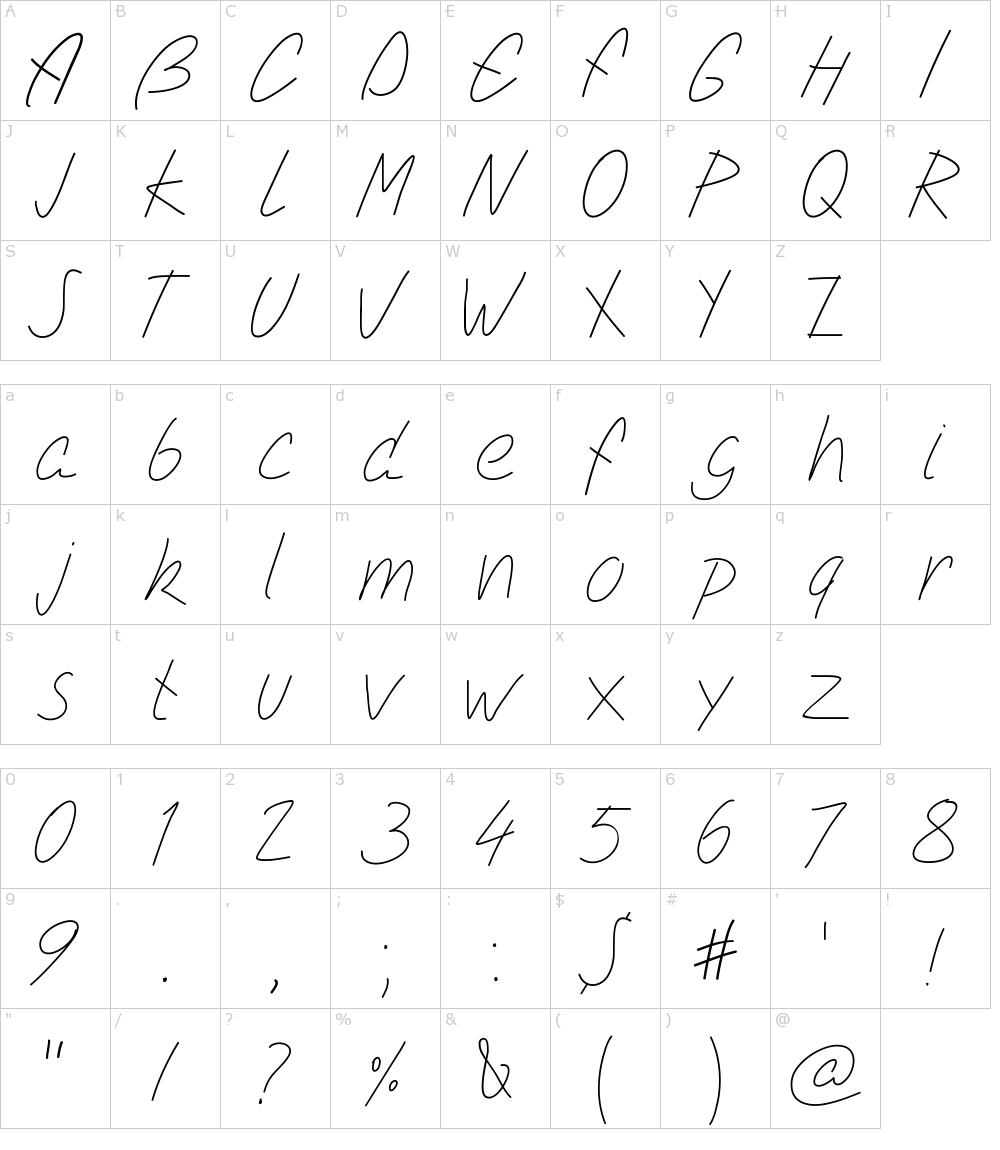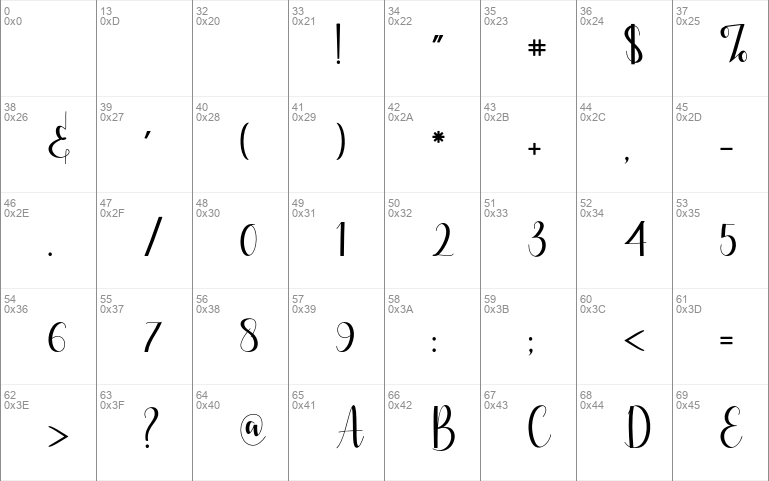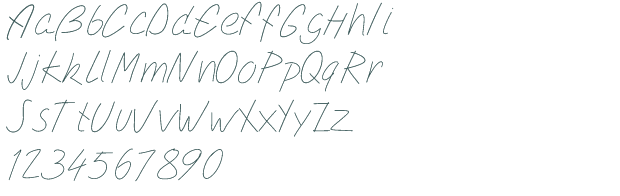
Best Simple Script Fonts
Best Simple Script Fonts. Kite is a simple font with creative stylistic elements. Alma sans is a low contrast font that comes with a minimalist letter design.
It is a simple and quite understandable web font designed by vernon adams. The font has used traditional letterforms in a very modern way. Valak otf thin 6 font files.
Gratitude Script Was Especially Created For Weddings, But You Can Use It Any Way You Want.
Kite is a simple font with creative stylistic elements. We have 194 free simple fonts to offer for direct downloading · 1001 fonts is your favorite site for free fonts since 2001 That includes 151 unique ligatures as well as 45 alternates.
Simple Script À € By Zulkhairilettering.
Chinese, jpn arabic mexican roman, greek russian various. It is a simple and quite understandable web font designed by vernon adams. Everything you type with this font will make it look natural and professional.
You Can Use The Handwriting Font Of Amatic Sc On Social Media Campaigns, Quotes, Posters, And Everything In Between.
Every font is free to download! Use it for branding, social media, magazines, and any other design where bold typography is needed. Milles is a versatile free script font courtesy of fortunes co.